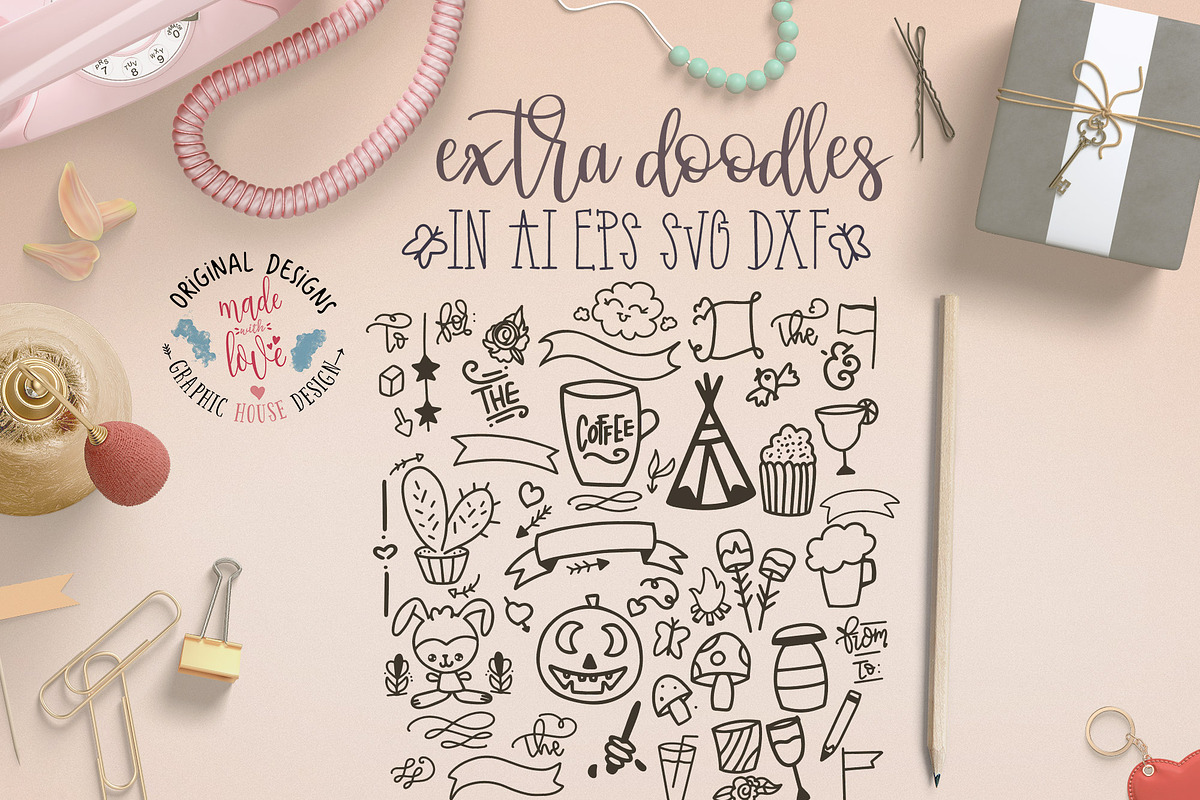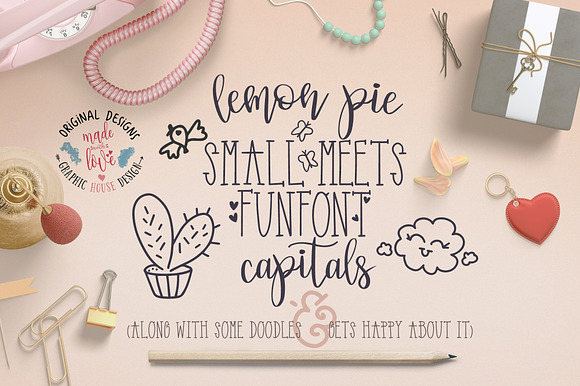
Font Duo, Lemon Pie and FunFont
This Font Duo includes:
1)Lemon Pie Small Letters, Lemon Pie is a Modern Hand Lettered Script Font with a tall R and T which makes the script stand out. Modern, cute, playful and feminine are the words that best describe its character.
2) Funfont Capital Letters and Numbers. Also a set of alternate Capitals which you can find at Alternate Ligatures.